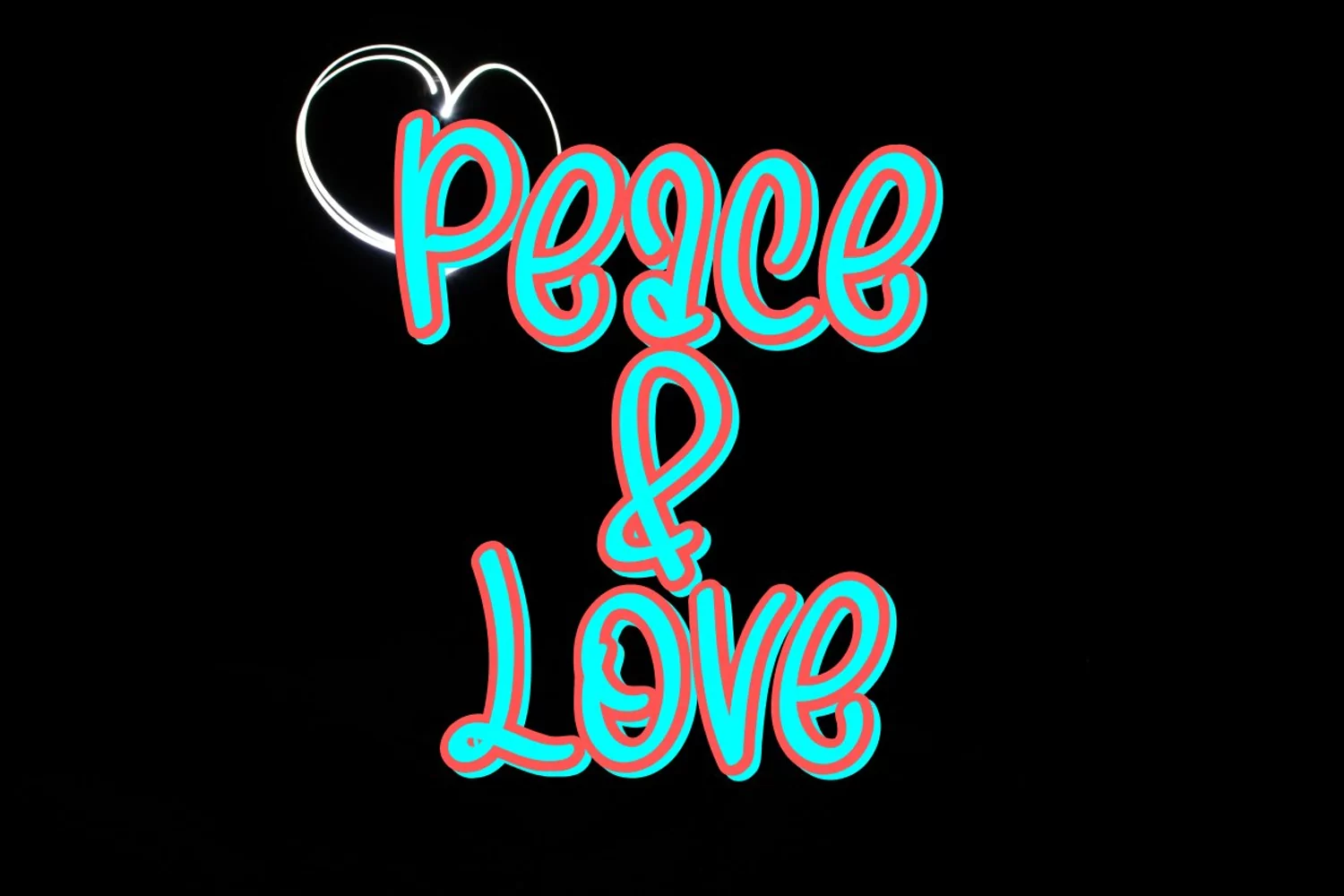
Summer House a new fresh & simple handwritten font style! So beautiful on invitation like greeting cards, branding materials, business cards, quotes, posters, and more!!
SummerHouse